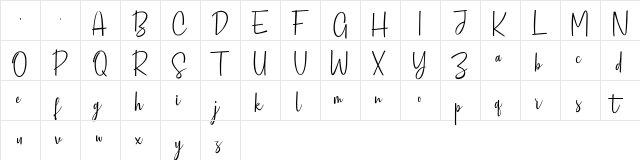
Sofiebestin Script Regular
| Foundry | Cotbada Studio |
| Designer | Cotbada Studio |
Design Context for Sofiebestin Script Typeface
Sofiebestin Script flows with the natural rhythm of handwritten lettering, making it ideal for designs that call for warmth and personal expression.